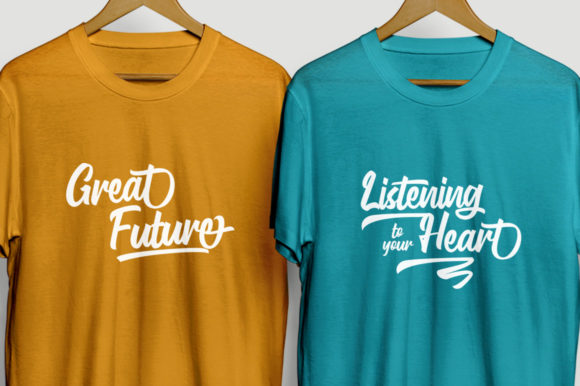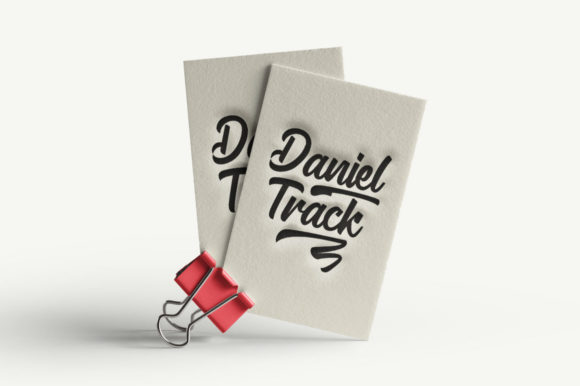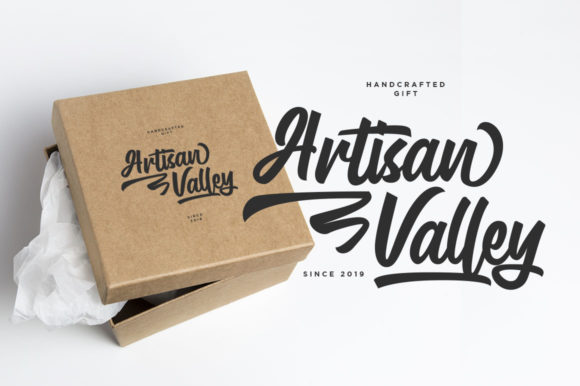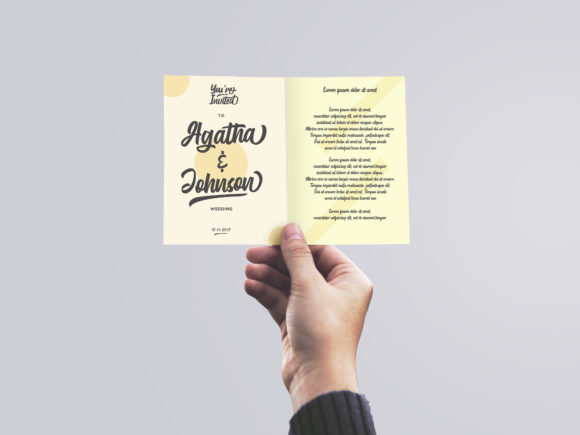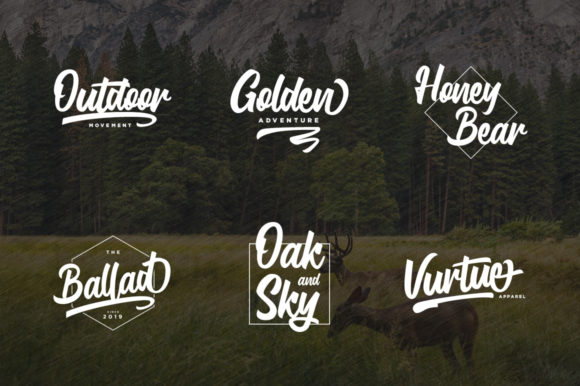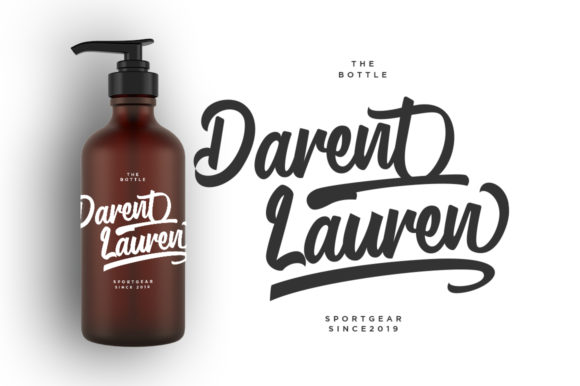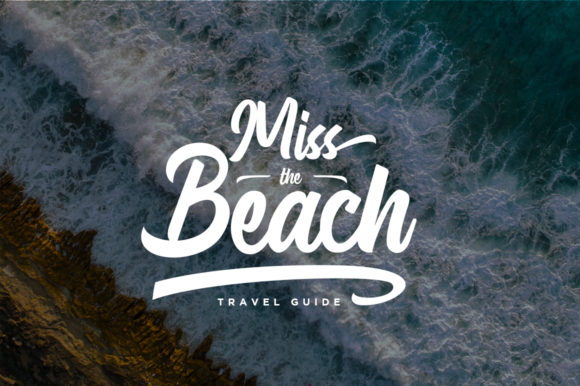
Gluottine Font
About Gluottine Font
Gluottine is a modern calligraphy font that’s perfect for adding that classy vibe to your next craft. Get inspired by its timeless charm!